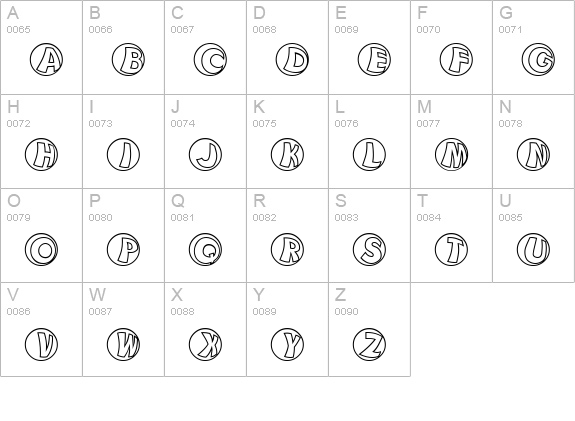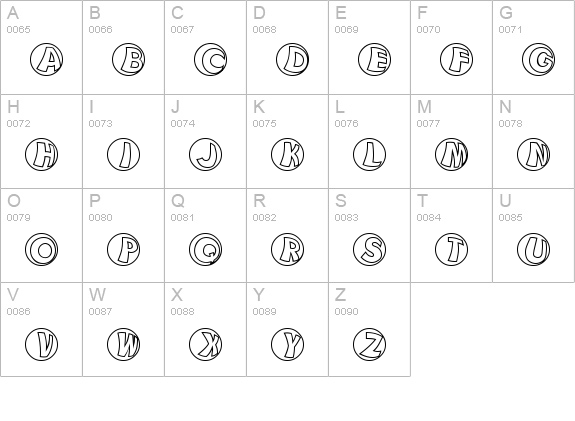
KAMarbleClear Font Details
KAMarbleClear is a stunning font that will make your designs stand out from the crowd. This font exudes elegance and sophistication, making it perfect for a wide range of projects, from logos and branding to invitations and headlines. With its unique and intricate design, KAMarbleClear adds a touch of class and refinement to any piece of artwork. Each character is carefully crafted to resemble the smooth, polished surface of a marble slab, giving your text a luxurious and eye-catching appearance. What sets KAMarbleClear apart from other fonts is that it is completely free. Yes, you read that right! This exceptional font is freely available to download at FontsMarket.com. Now you can add a touch of elegance to your designs without having to spend a fortune. Whether you are a professional designer or a DIY enthusiast, KAMarbleClear is a must-have font in your collection. Its versatility allows it to be used in a variety of projects, from print to digital, ensuring that your designs always make a lasting impression. Don't miss out on the opportunity to enhance your creativity with KAMarbleClear. Download it for free today at FontsMarket.com and let your designs shine with its timeless beauty and sophistication.